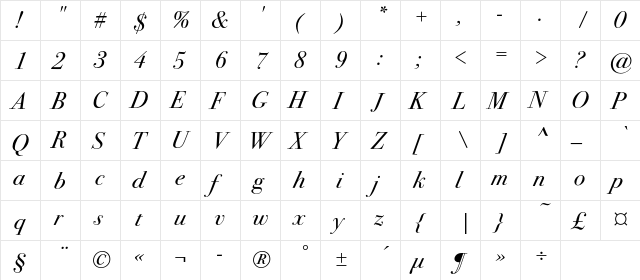
Bodoni72C Italic
Design Context for Bodoni72C Typeface
Bodoni72C is a composed and adaptable typeface that performs quietly and consistently across a wide range of design contexts. The slanted form adds forward momentum and visual energy.
Pro Tip: Use Bodoni72C for emphasis, pull quotes, and subheadings where its slanted energy can add rhythm to the layout.